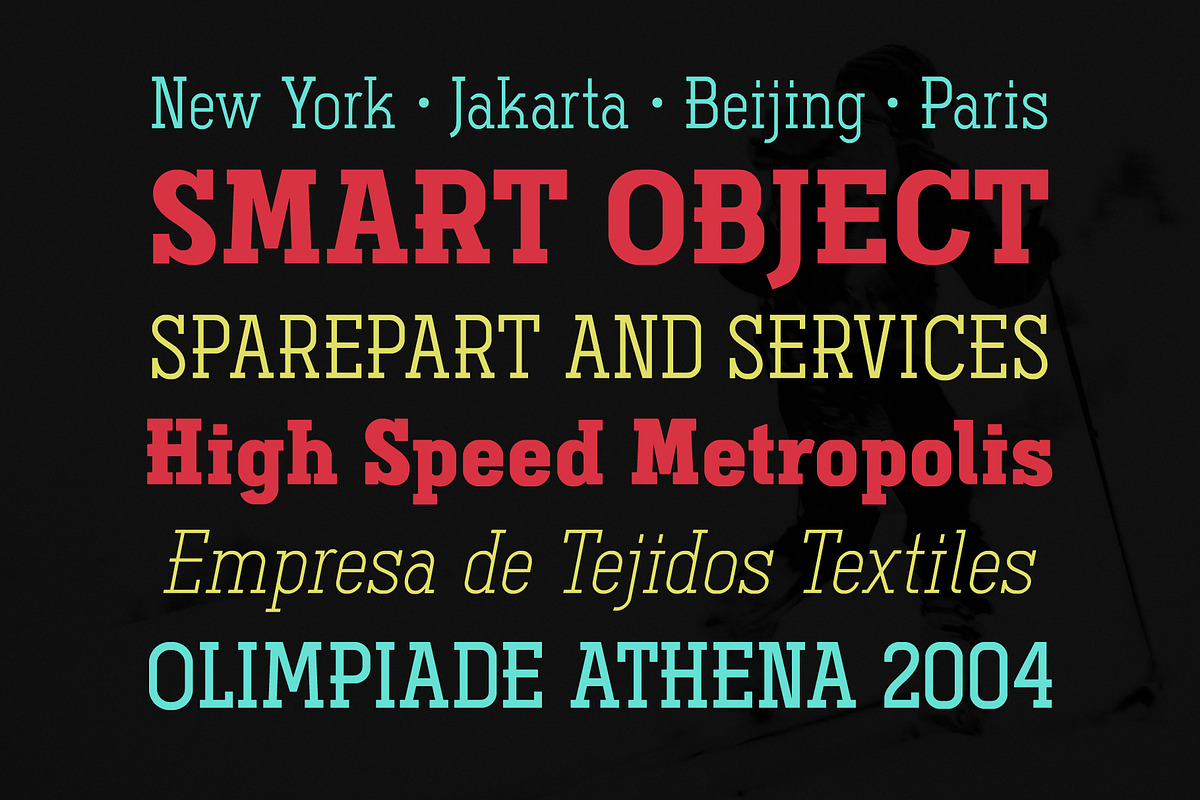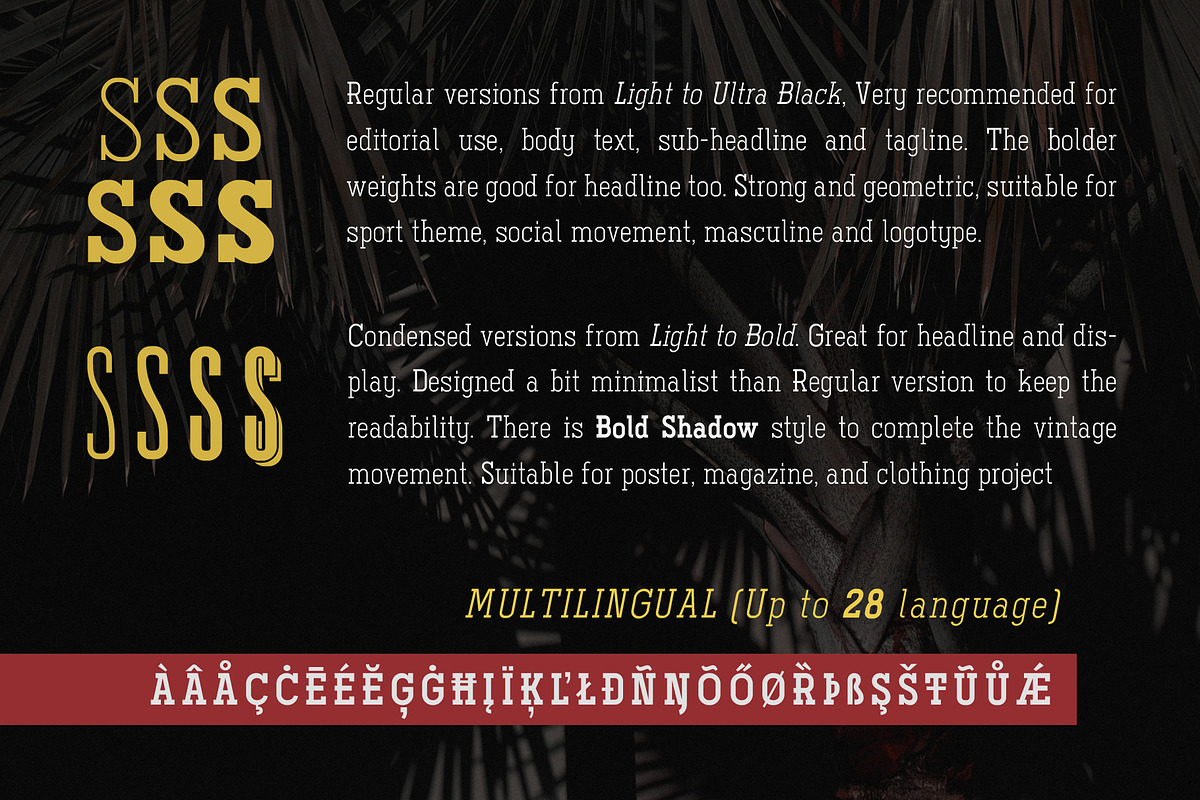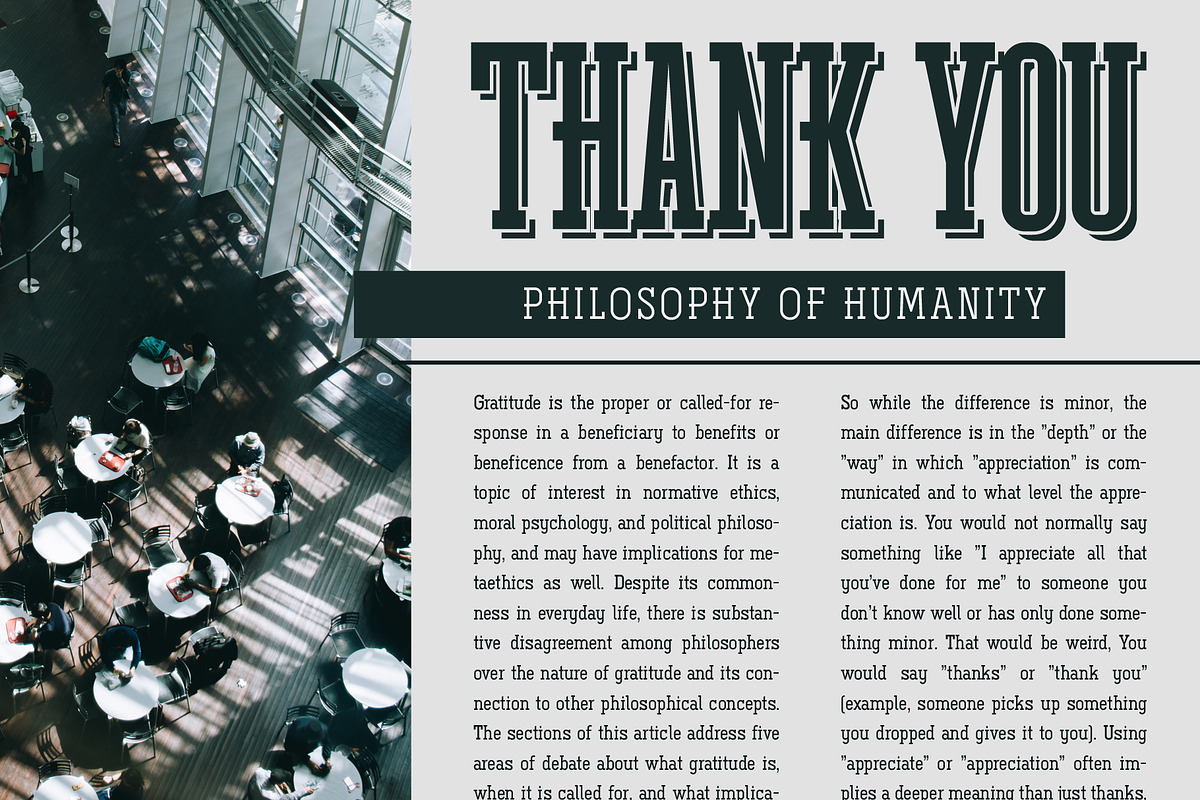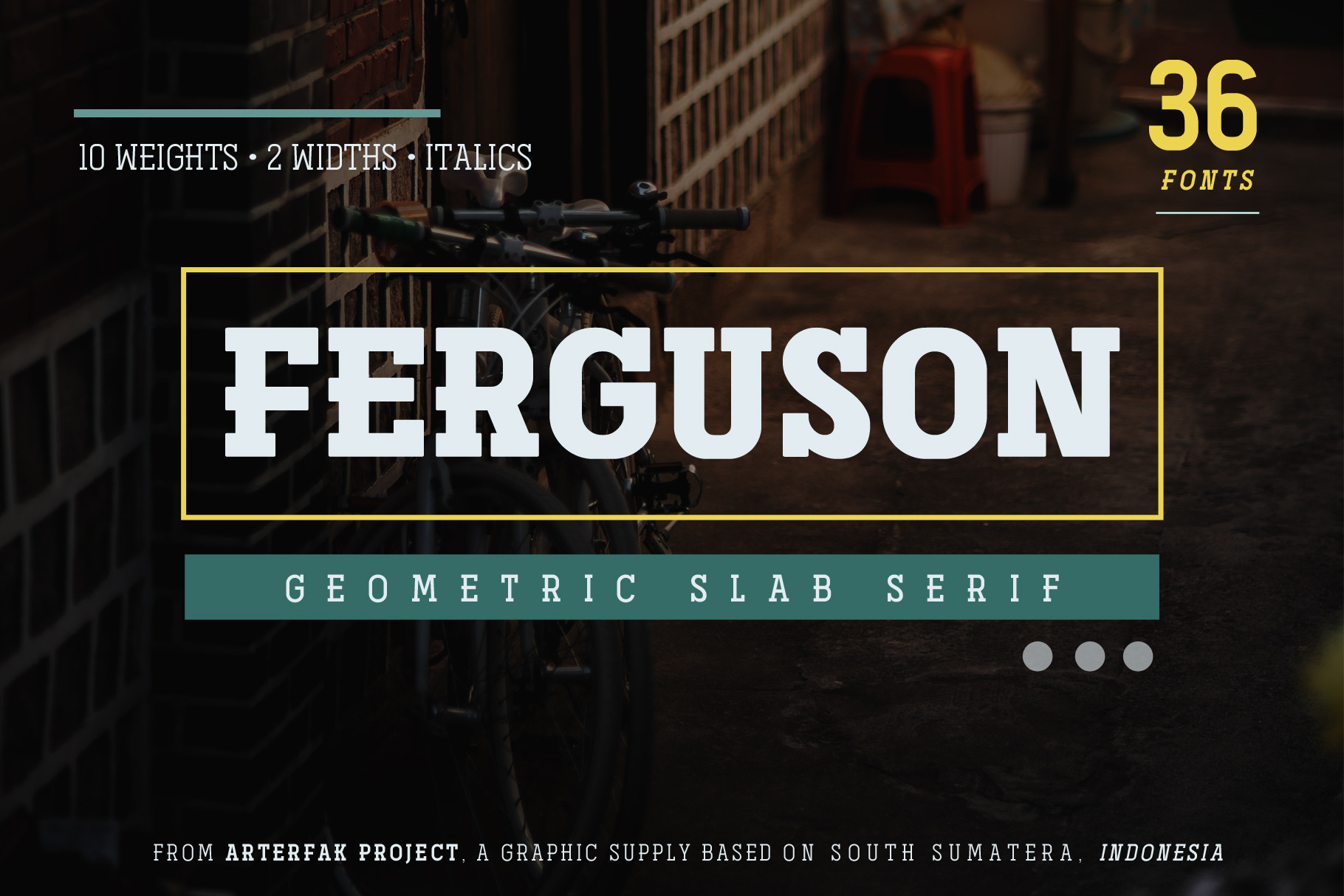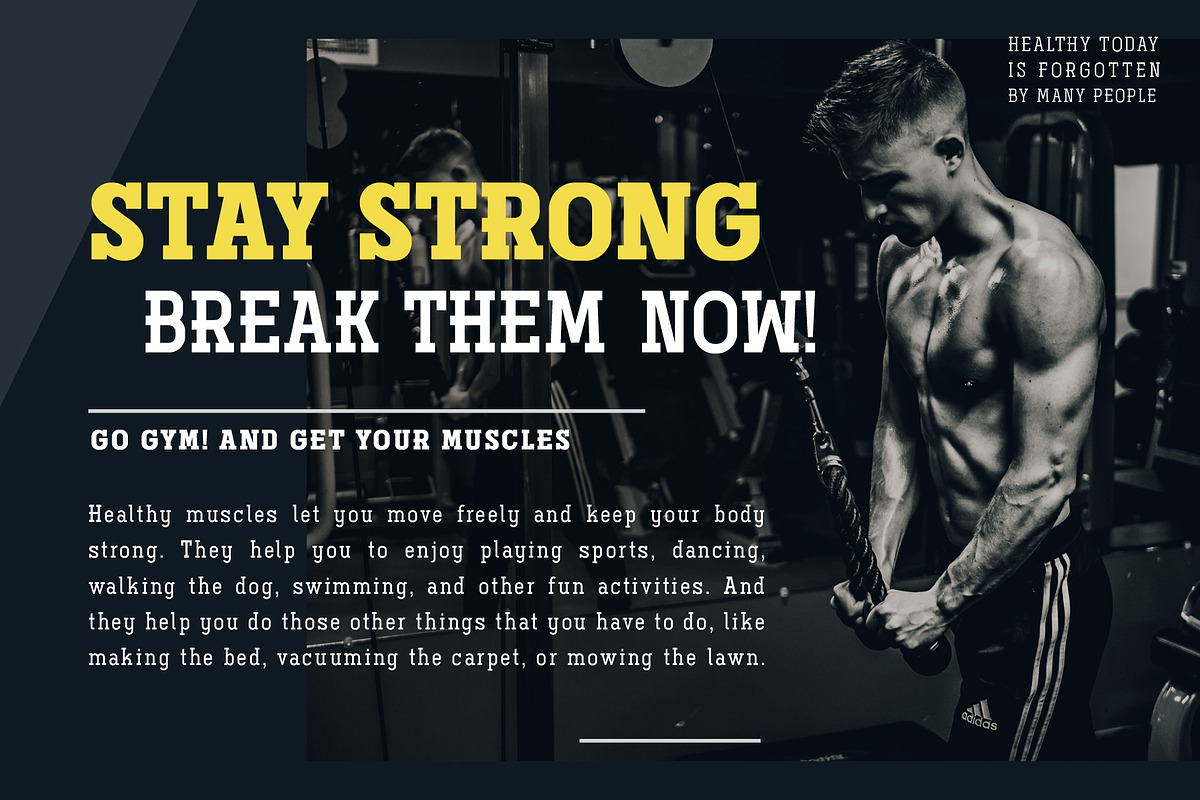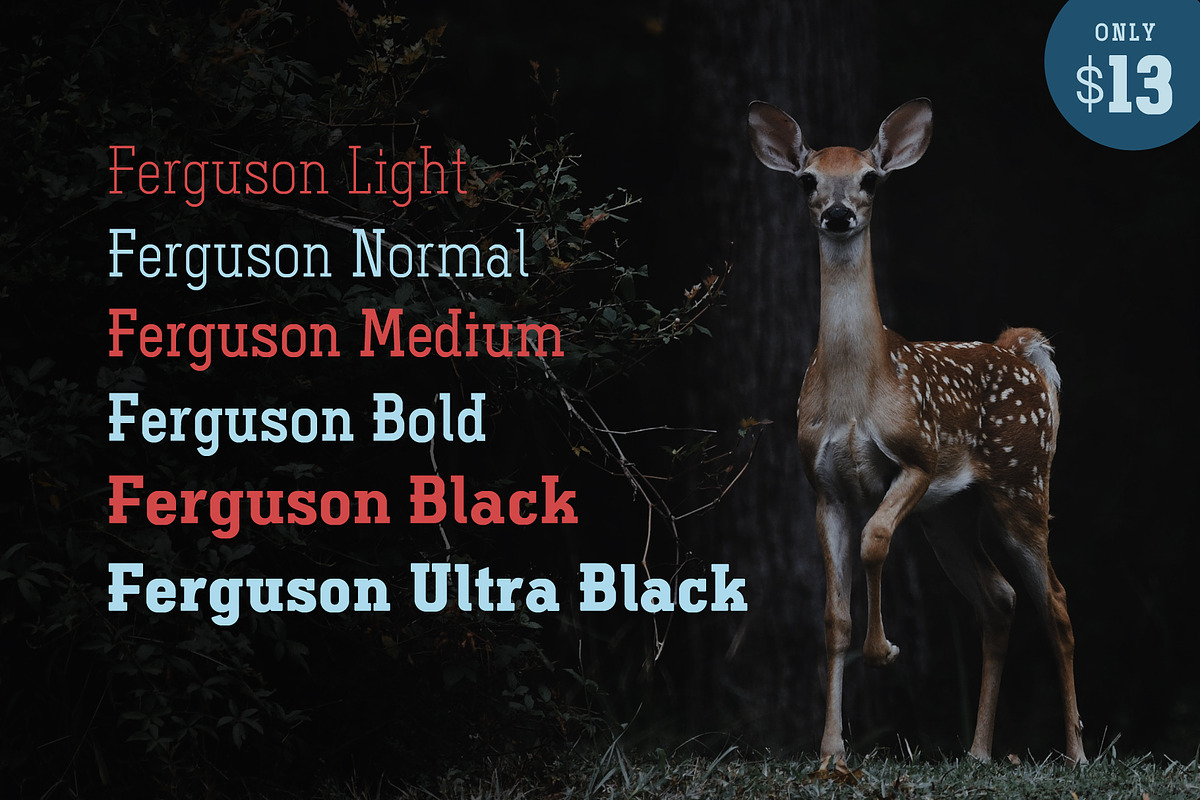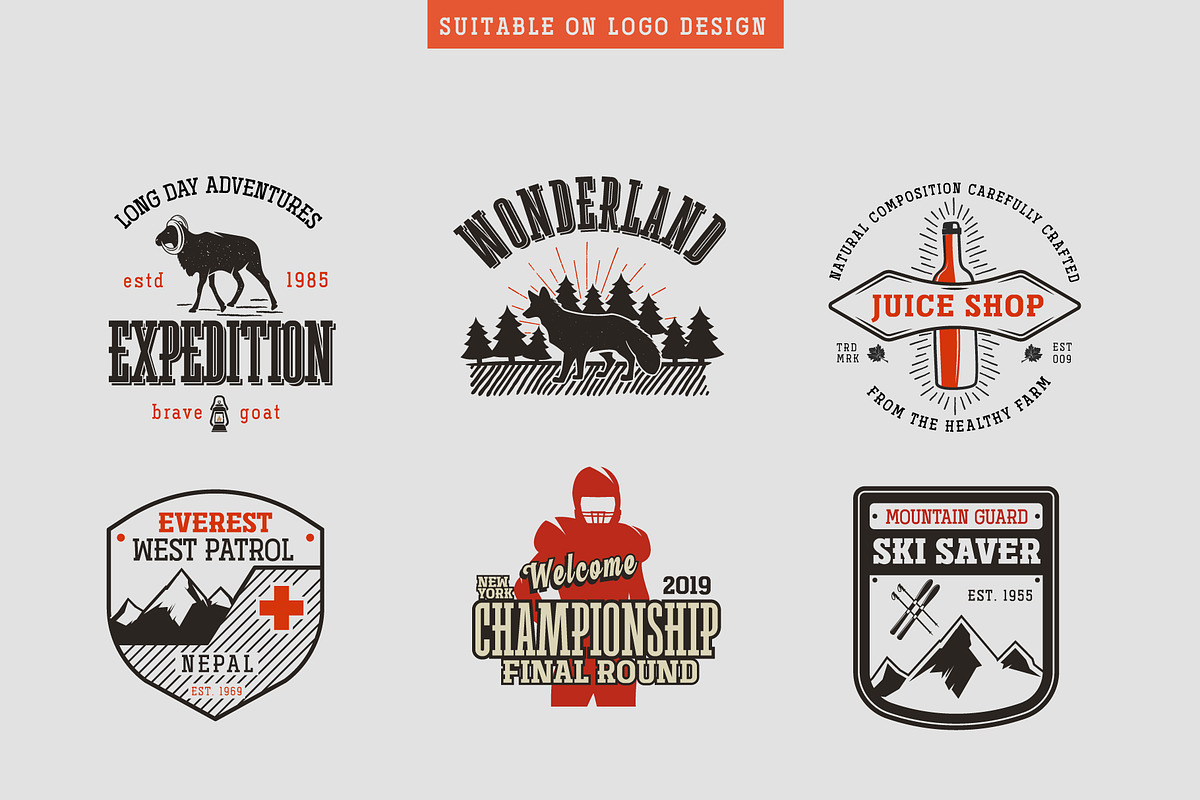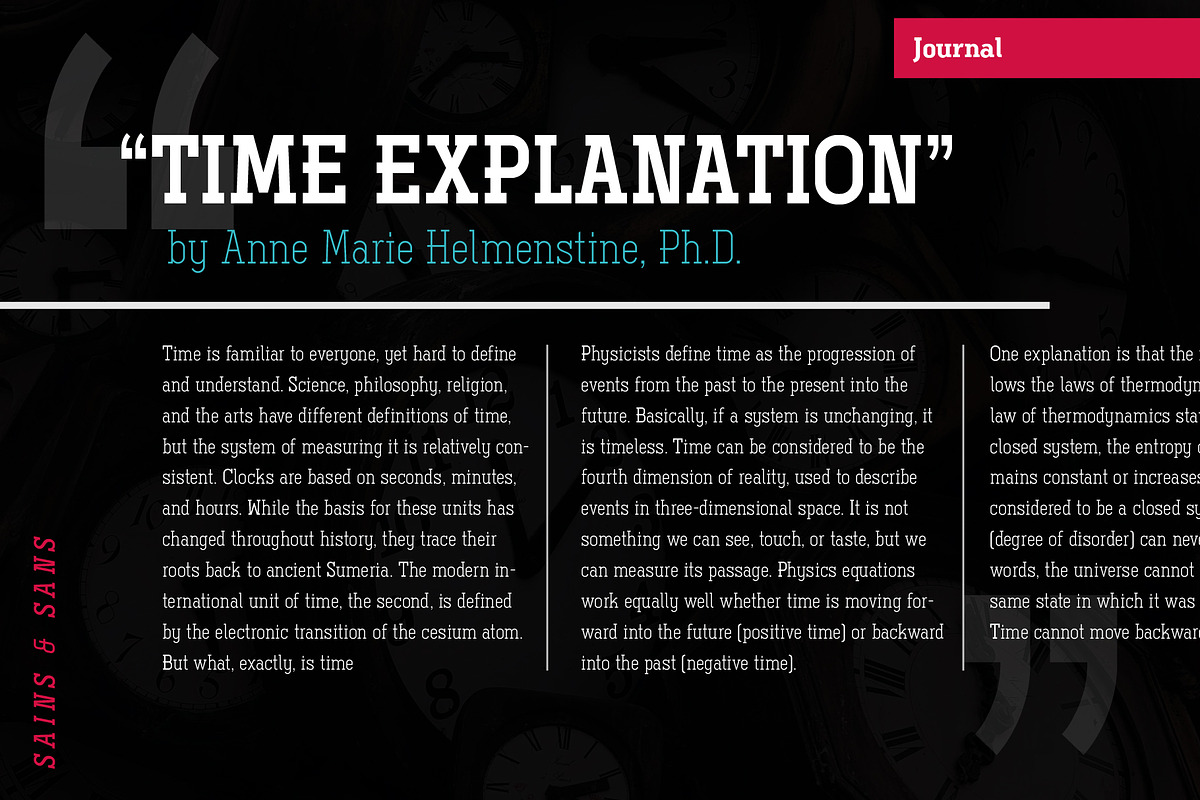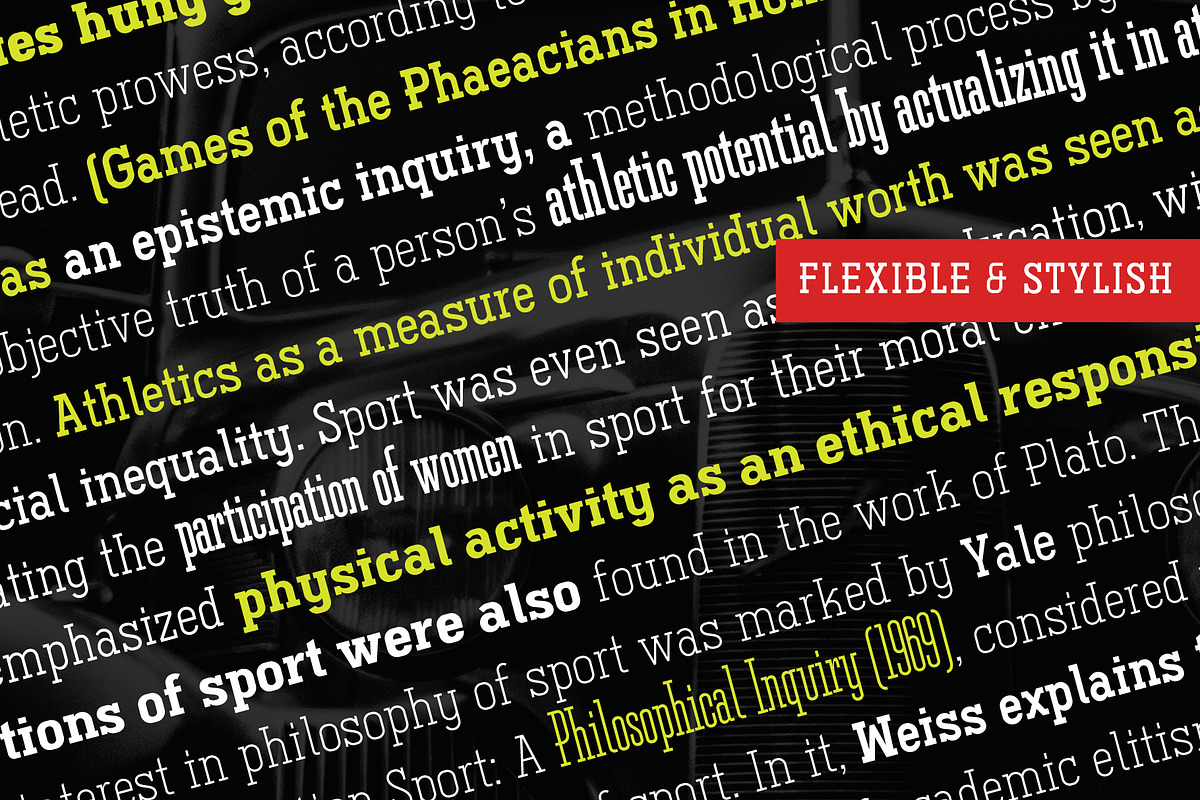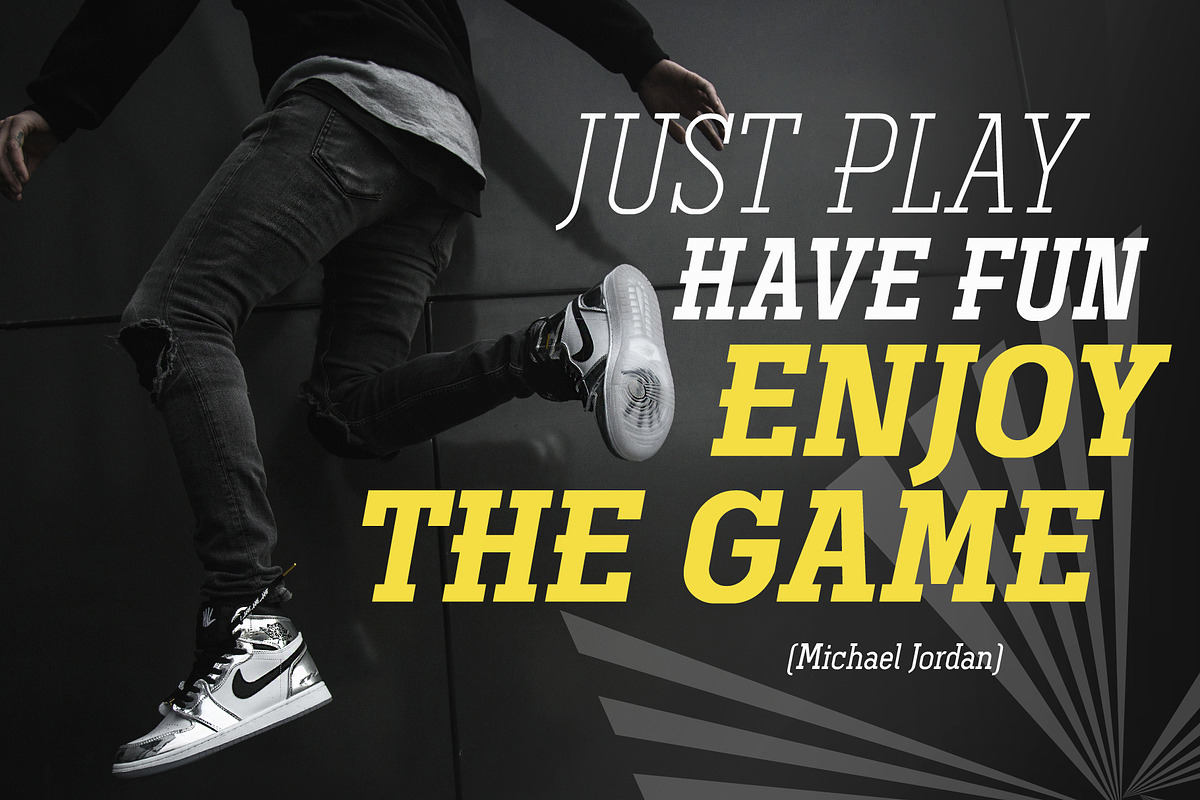
Ferguson Slab Font Family
Ferguson is a geometric slab serif which made with a mono-line concept and versatile style. Inspired by old western and magazine designs. Ferguson has a straight and consistent line to give neat looks.
Ferguson is made for editorial and formal purposes. but still flexible to use it in other typographic projects. This font family has 6 weights and 2 widths that gives you many options on your designs projects.
- Regular versions: Comes from Light, Normal, Medium, Bold, Black, and Ultra Black. Very recommended for editorial use such as body text, sub-headline, and tagline. The bolder weights are goods for headline too. Strong and geometric! Suitable for sports themes, social movement, masculine and logotypes.
- Condensed versions: Available in Light, Normal and Bold. Great choice for a headline, and display. This condensed designed a bit minimalist than regular version to keep the readability. Also, there is Bold Shadow style to complete the vintage movement which happening now. Suitable for a poster, magazines, and clothing project.
Ferguson font family has up to 28 accents: Afrikaans, Albanian, Catalan, Croatian, Czech, Danish, Dutch, English, Estonian, Finnish, French, German, Hungarian, Icelandic, Italian, Latvian, Lithuanian, Maltese, Norwegian, Polish, Portuguese, Romanian, Slovak, Spanish, Swedish, Turkish, Zulu.
- Some symbols
- Diacritics